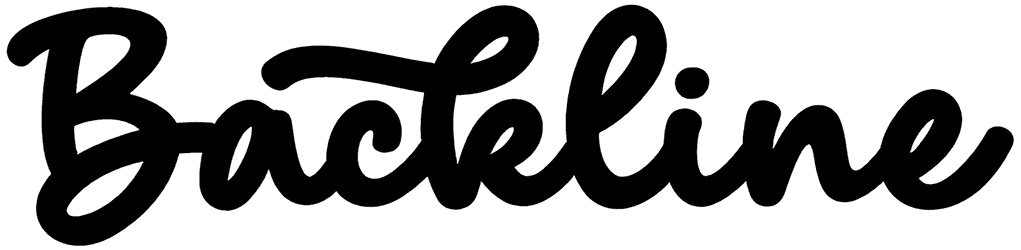
Backline Font
In order to add a personal touch to your digital creations and advance your career, consider using the handwritten font, Backline. Using a script font like this will lend a casual air to your presentation.
Its pleasant tune makes it suitable for use in a wide variety of contexts, from invitations and greeting cards to posters and street banners. You can finally say goodbye to tedious procedures if you’re ready to take a chance on this.